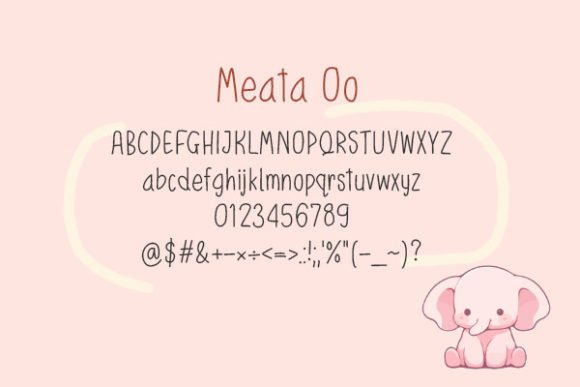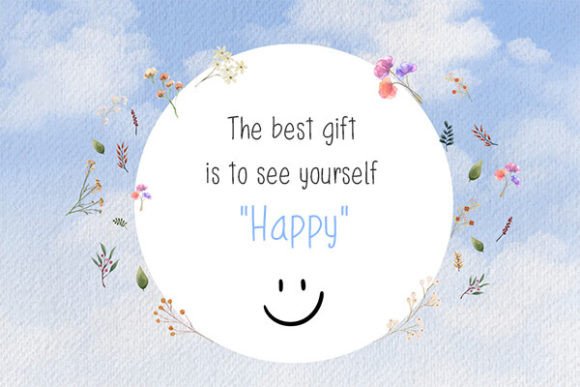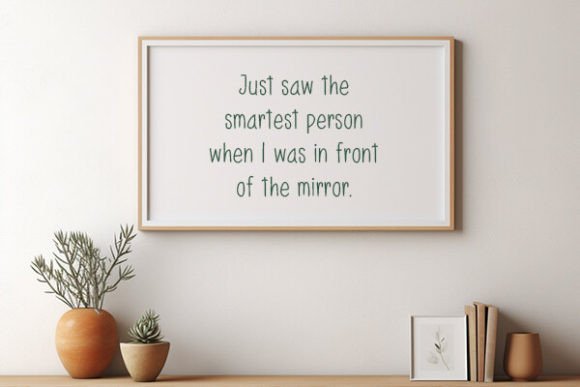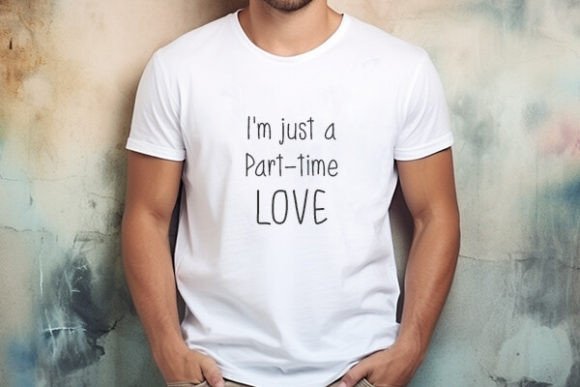
Introduction to Meata Oo Font
Meata Oo is a friendly, stylish and modern handwritten font.
It informal style and casual vibe It would be awesome to your fun projects or diary planner, on wedding invitations, thank you cards, quotes, greeting cards, logos, posters, blogs, bag, T Shirt, clothing, eye-catching social media posts, and much more.
Key Features of Meata Oo Font